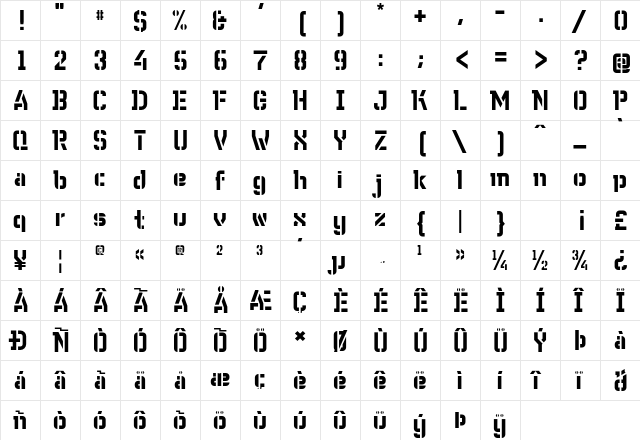
WC Wunderbach Bta DemiBold
Design Context for WC Wunderbach Bta Typeface
WC Wunderbach Bta takes a measured approach to typography — its balanced proportions and neutral character make it a reliable workhorse for both digital and print work. Its bold stroke weight gives it real presence on the page.